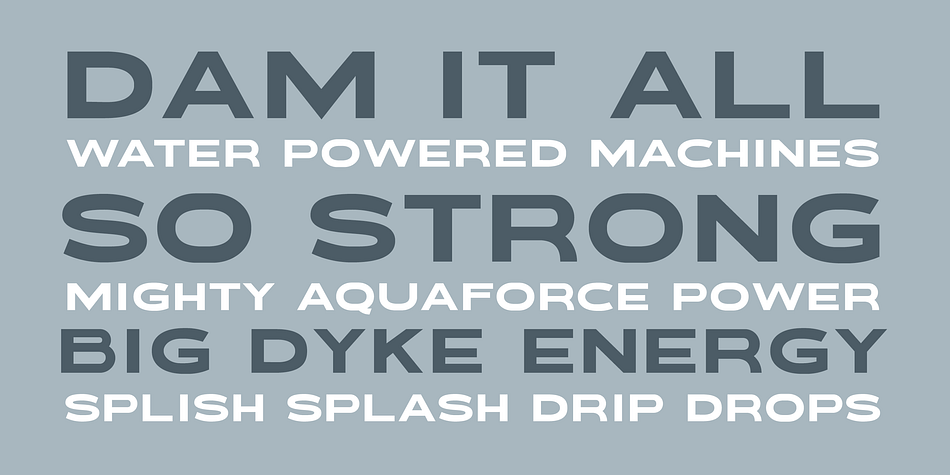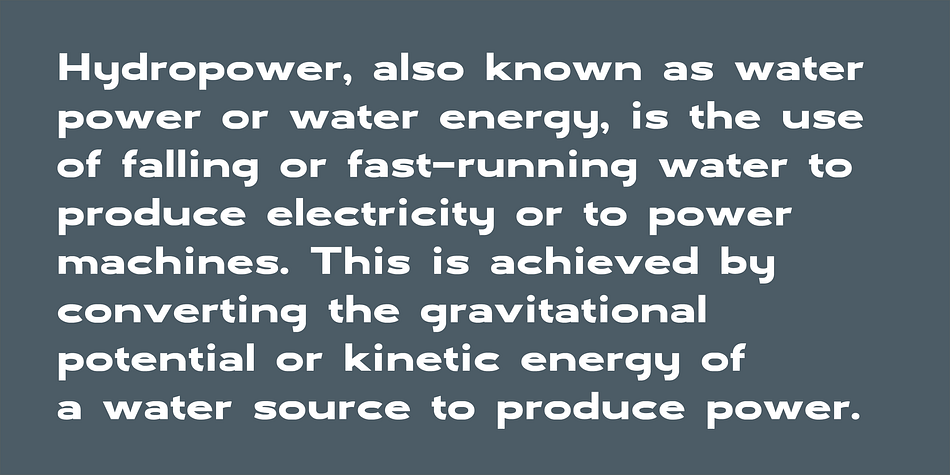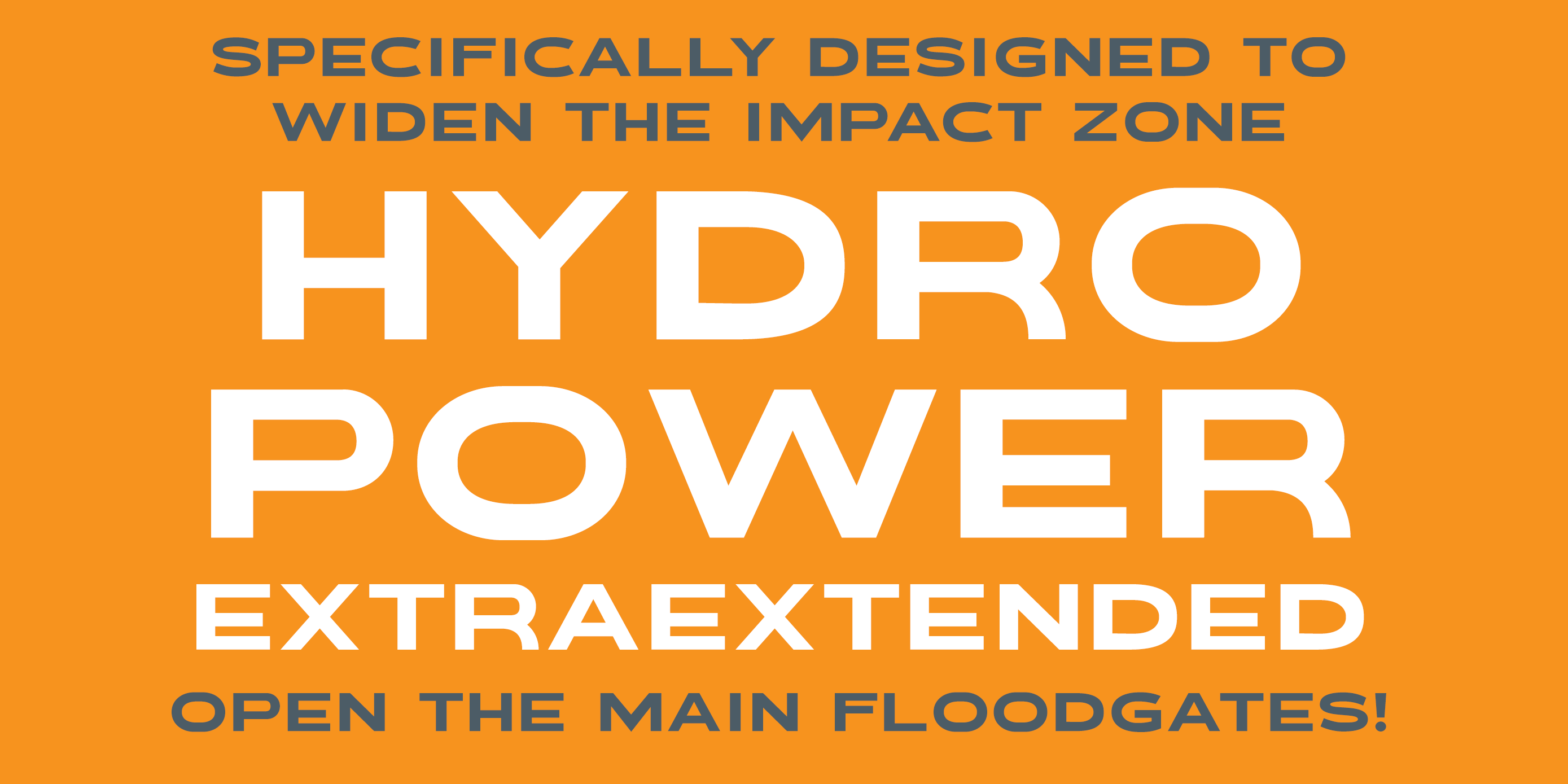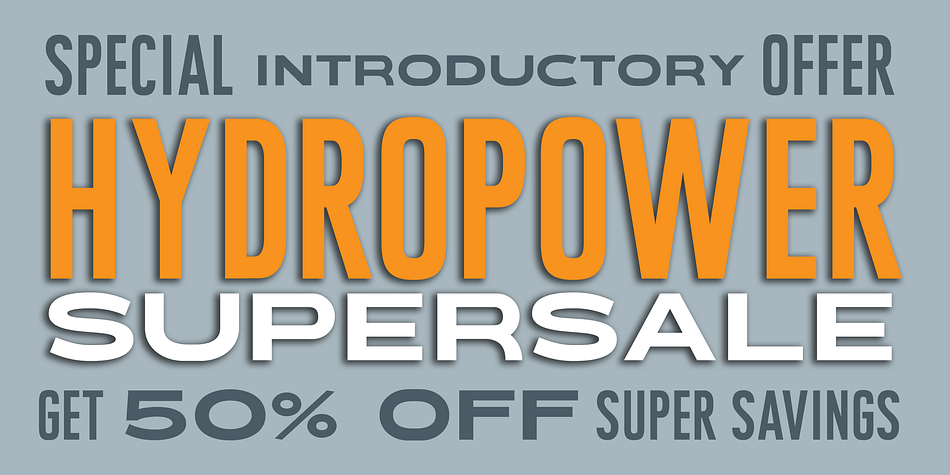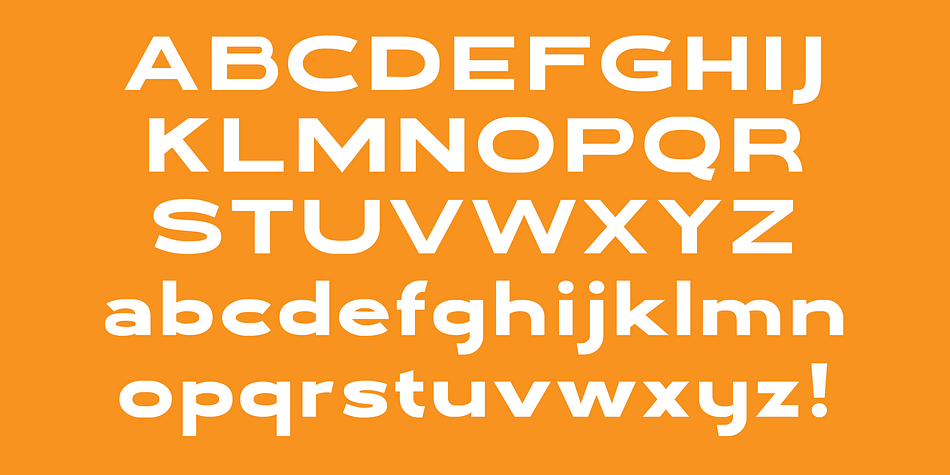
Hydropower Extraextended
Designed by Chank Diesel, Hydropower Extraextended is a sans serif font family published by Chank Fonts.
The Hydropower fonts capture the voice of prohibitive signage and control panel dials from Cold War-era space agencies and secret X-files type organizations you’ve probably never heard of. Between the Extraextended and Extracondensed versions of this font family you can see the sensible extremes of how wide and narrow a headline font can be, before readability is lost. Plus, they remain legible even at small sizes. Inspired by hand-drawn grotesk letterforms, the Hydropower fonts were designed for a video game but are now available for whatever purpose you want, from screen to print, it’s crisp and clear and works everywhere.